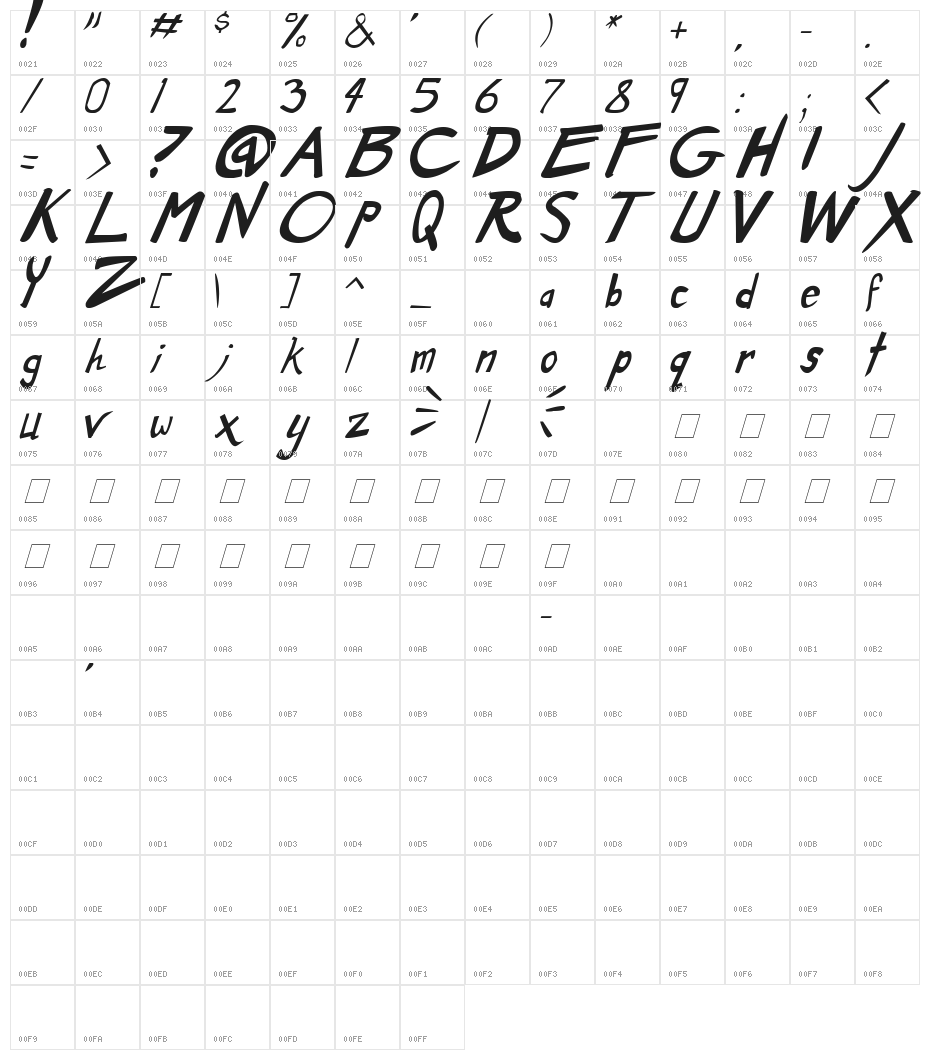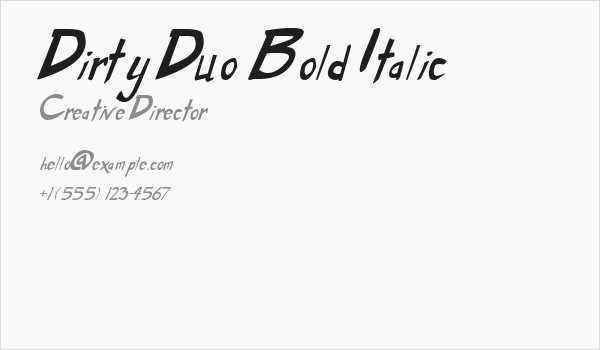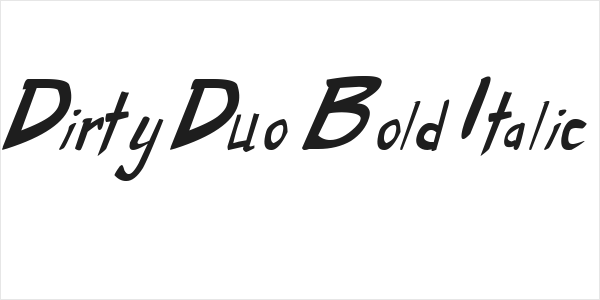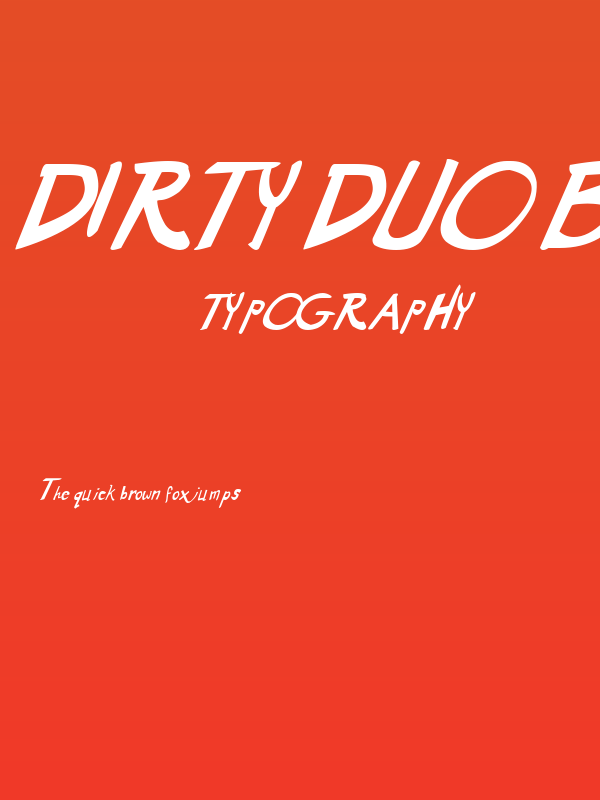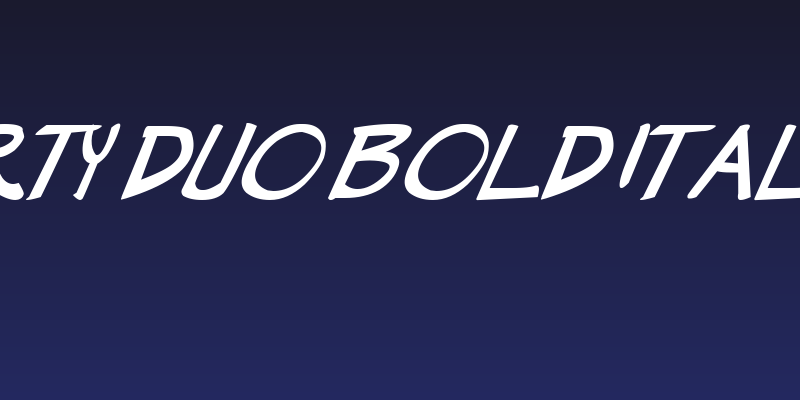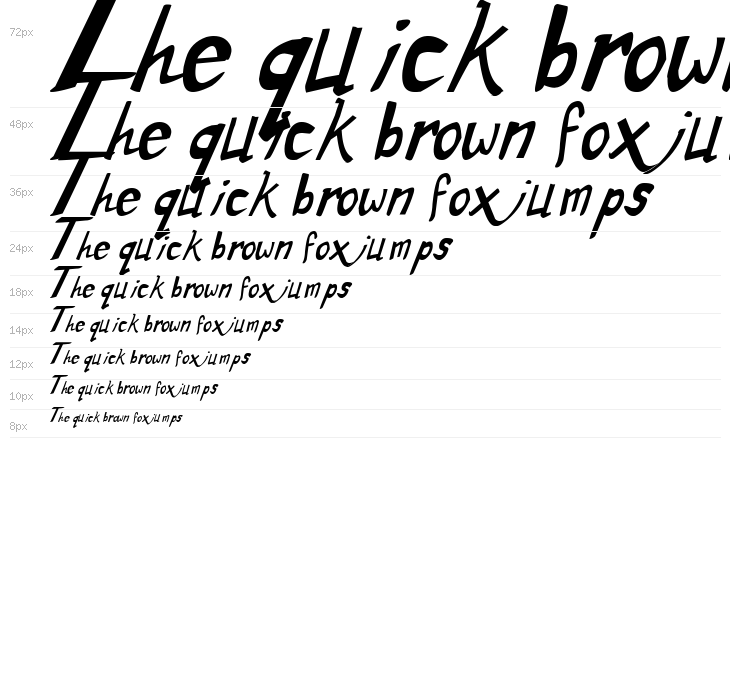
Dirty Duo Bold Italic Font
Dirty Duo Bold Italic Description
This font features a bold and dynamic style with a distinct italic slant, giving it a sense of movement and energy. The characters are crafted with a brush-like appearance, creating a handwritten feel that is both casual and expressive. The uppercase letters are slightly taller and more angular, while the lowercase letters maintain a consistent flow with rounded edges. Numbers and special characters follow the same bold and italicized style, ensuring uniformity across all elements. This font's unique personality makes it stand out, offering a playful yet assertive look.
| Proposed Projects | Ideal for creative projects such as posters, logos, branding, and packaging that require a bold and artistic touch. |